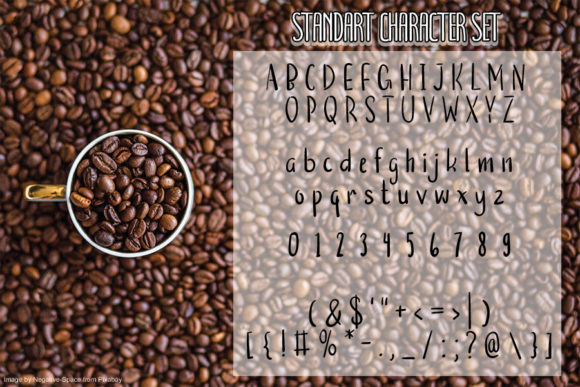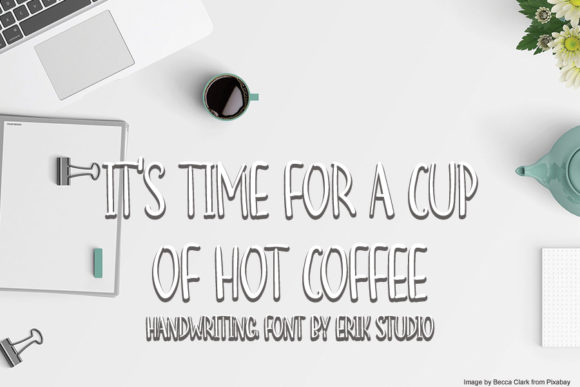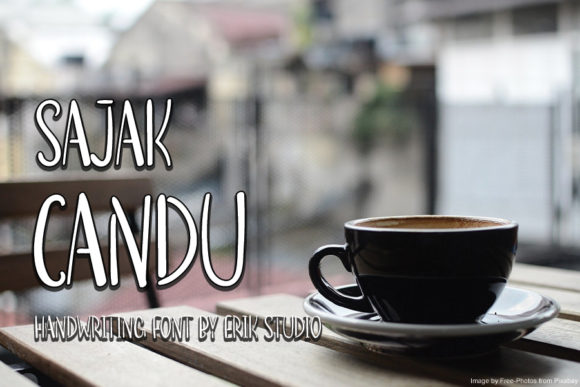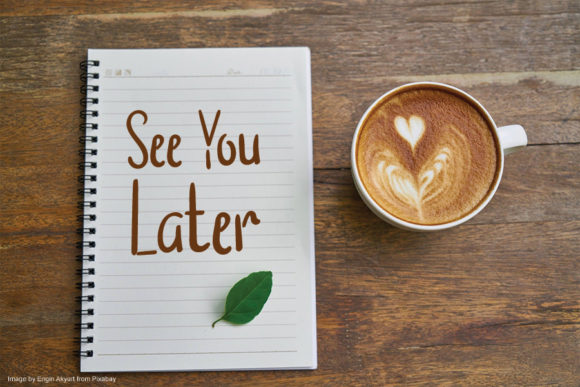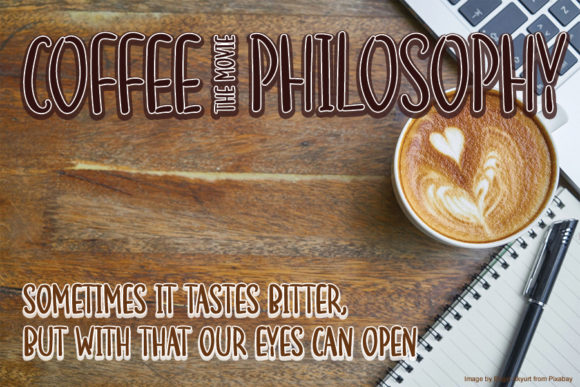
Coffee Phylosophy Font: The Perfect Addition to Your Design Arsenal
Are you tired of using the same old fonts in your designs? Do you want to add a fresh and contemporary touch to your creative projects? Look no further than the Coffee Phylosophy Font! This bouncy and quirky display font is sure to make your designs stand out from the crowd.
What is Coffee Phylosophy Font?
Coffee Phylosophy is a unique display font that is perfect for designers and crafters looking to add a touch of whimsy to their work. With its bouncy and quirky style, this font is sure to add a fresh and contemporary feel to any design. Whether you’re working on a logo, brochure, or social media graphic, Coffee Phylosophy Font is the perfect choice.
Key Features of Coffee Phylosophy Font
- Bouncy and Quirky Style: Coffee Phylosophy Font has a unique and playful style that is sure to grab attention.
- Display Font: This font is specifically designed for display purposes, making it perfect for headlines, titles, and other attention-grabbing elements.
- Fresh and Contemporary: Coffee Phylosophy Font has a modern and fresh feel that is sure to add a touch of sophistication to your designs.
- Unique and Creative: With its quirky style, Coffee Phylosophy Font is sure to make your designs stand out from the crowd.
Why Use Coffee Phylosophy Font?
There are many reasons why designers and crafters should consider using Coffee Phylosophy Font in their work. Here are just a few:
- Adds Visual Interest: The unique style of Coffee Phylosophy Font is sure to add visual interest to your designs, making them more engaging and attention-grabbing.
- Perfect for Creative Projects: Whether you’re working on a logo, brochure, or social media graphic, Coffee Phylosophy Font is the perfect choice for creative projects.
- Easy to Read: Despite its quirky style, Coffee Phylosophy Font is easy to read, making it perfect for use in a variety of design applications.
- Versatile: Coffee Phylosophy Font can be used in a variety of design applications, from digital graphics to print materials.
How to Use Coffee Phylosophy Font
Using Coffee Phylosophy Font is easy! Here are a few tips for incorporating this font into your designs:
- Use it as a Display Font: Coffee Phylosophy Font is specifically designed for display purposes, making it perfect for headlines, titles, and other attention-grabbing elements.
- Pair it with Other Fonts: Coffee Phylosophy Font pairs well with a variety of other fonts, making it easy to create visually interesting designs.
- Experiment with Different Sizes and Colors: Don’t be afraid to experiment with different sizes and colors of Coffee Phylosophy Font to create a unique look.
In conclusion, Coffee Phylosophy Font is a unique and versatile display font that is perfect for designers and crafters looking to add a fresh and contemporary touch to their work. With its bouncy and quirky style, this font is sure to make your designs stand out from the crowd. So why not give Coffee Phylosophy Font a try and see how it can elevate your designs?
- Use Coffee Phylosophy Font to Add Visual Interest: Use Coffee Phylosophy Font to add visual interest to your designs, making them more engaging and attention-grabbing.
- Experiment with Different Design Applications: Don’t be afraid to experiment with Coffee Phylosophy Font in different design applications, from digital graphics to print materials.
- Pair it with Other Fonts: Coffee Phylosophy Font pairs well with a variety of other fonts, making it easy to create visually interesting designs.